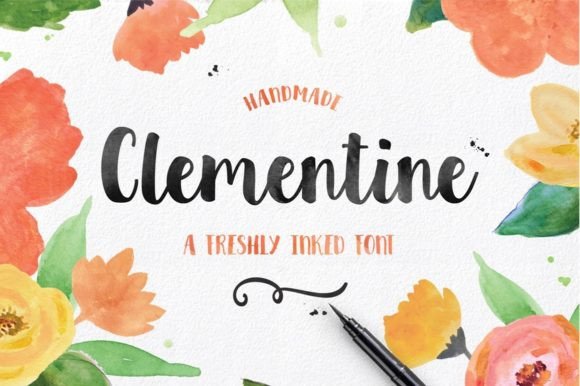
**Behold Clementine Font: The Quintessential Handcrafted Script**
In the world of typography, Clementine Font stands as a radiant beacon of creativity, inviting you to embrace the allure of handwritten beauty. Born from the artistic vision of Emily Spadoni Type & Design, this captivating script font is meticulously crafted to evoke the charm and elegance of hand-lettering.
**Immerse Yourself in the Allure of Handcrafted Beauty**
With Clementine Font, you're not just downloading a font; you're acquiring a timeless masterpiece. Each character is a brushstroke of artistry, carefully rendered to capture the nuances and imperfections inherent in human handwriting. This font is more than just a collection of letters; it's an expression of your unique personality and style, ready to infuse your creative projects with a touch of heartfelt authenticity.
**A Versatile Muse for Limitless Creative Expression**
Whether you're a seasoned designer or simply seeking to add a personal touch to your projects, Clementine Font is your ultimate creative companion. Its versatility knows no bounds, seamlessly adapting to a multitude of design endeavors. From whimsical signage that captivates attention to elegant posters that leave a lasting impression, Clementine Font empowers you to transform your vision into reality.
**Unleash the Enchanting World of Clementine Script**
As you delve into the depths of Clementine Font, you'll discover a treasure trove of creative possibilities. Experiment with its uppercase characters for headlines that command attention or let the lowercase letters dance across your designs with their graceful curves. The possibilities are endless, inviting you to explore new horizons of creativity and self-expression.
**Embark on a Creative Journey with Clementine Font**
Don't settle for ordinary fonts that blend into the background. Choose Clementine Font and let your creativity soar. Its bold characters will make your logo shine, while its playful charm will add a touch of whimsy to your posters and social media graphics. With Clementine Font, you'll never again struggle to find the perfect font; it's the versatile solution for all your creative needs.
**Clementine Font: Where Art and Expression Converge**
Clementine Font is more than just a font; it's an invitation to embark on a creative journey, to explore the depths of your imagination and bring your vision to life. Let Clementine Font be your guiding light as you navigate the world of design, leaving a trail of beauty and inspiration in your wake.